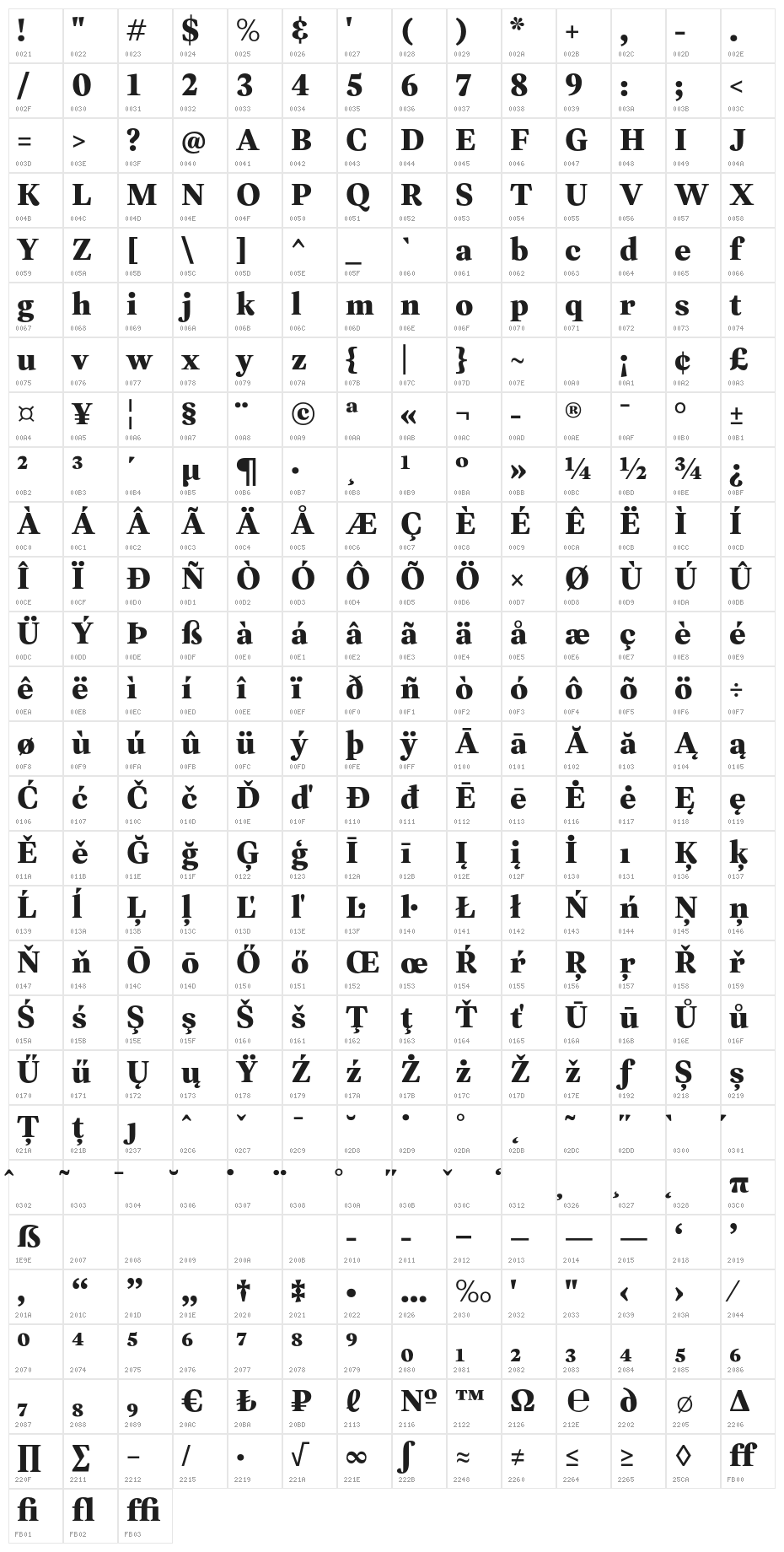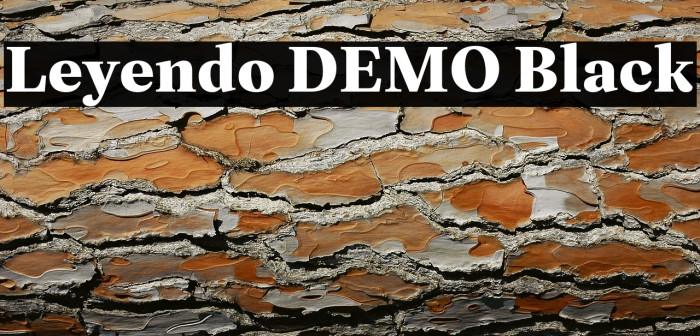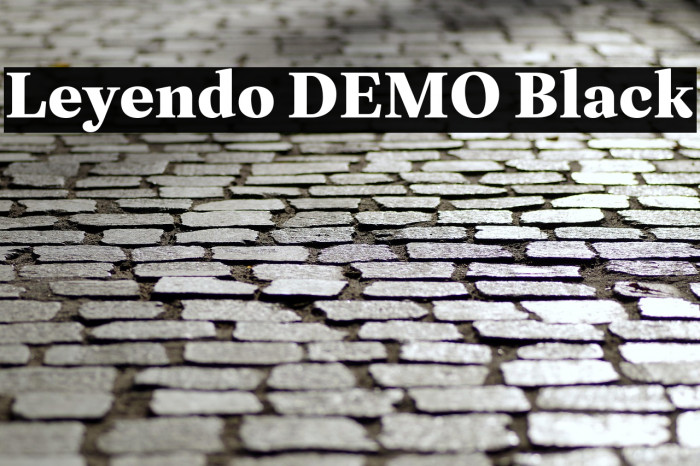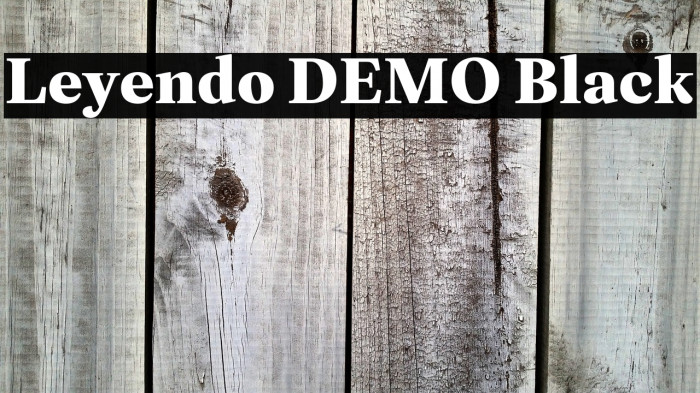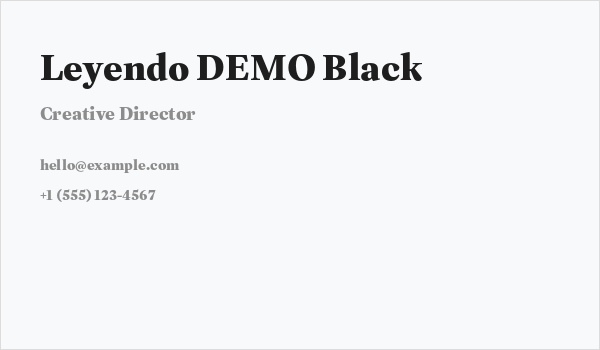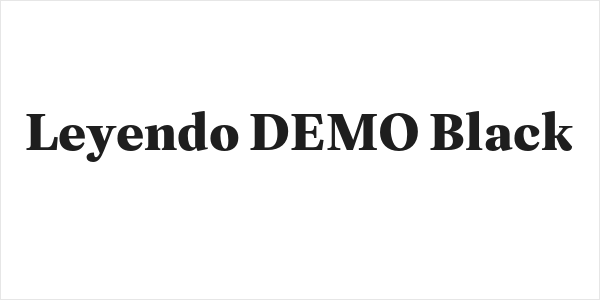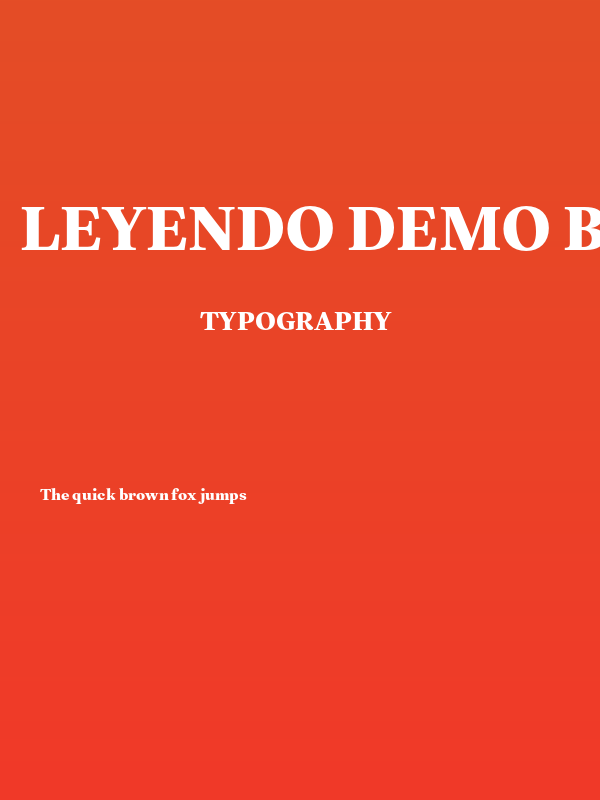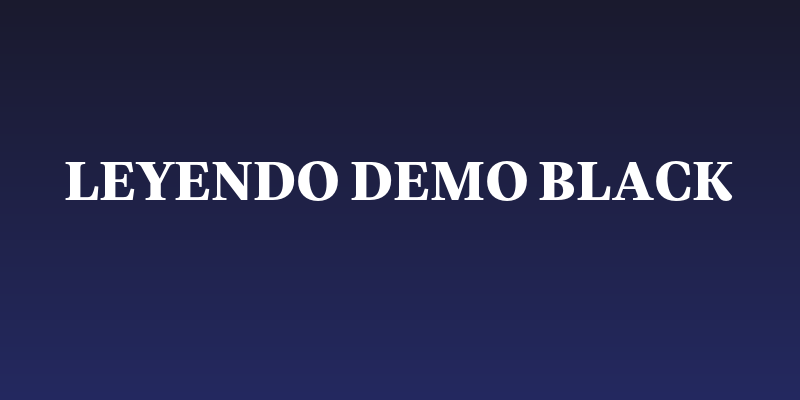
Leyendo DEMO Black Font
Leyendo DEMO Black Description
This font exhibits a bold and commanding presence with its strong, thick strokes and pronounced serifs. The uppercase letters are robust and authoritative, while the lowercase letters maintain a consistent weight, offering a harmonious balance. The numerals are clear and easily distinguishable, making them suitable for various applications. Special characters are crafted with precision, ensuring readability and aesthetic appeal. The overall design is classic yet modern, making it versatile for both traditional and contemporary projects.
Overall StyleClassic
Use CaseHeadlines, Logos, Editorial Design
Proposed ProjectsIdeal for headlines, branding, editorial design, and signage where a strong, authoritative presence is required.